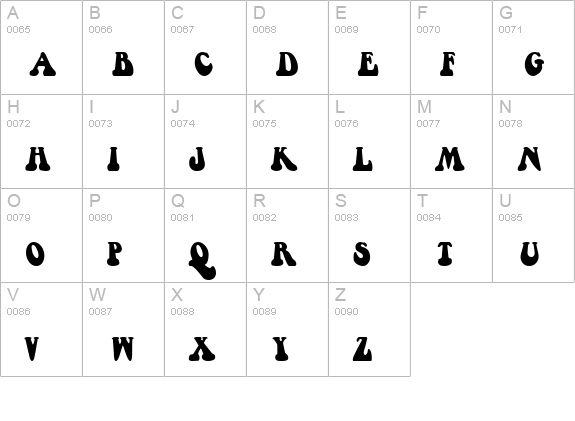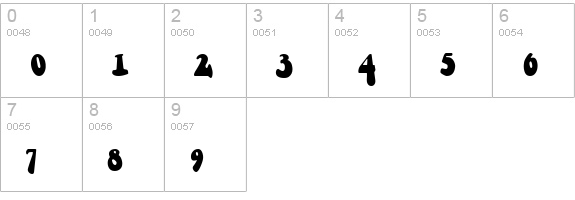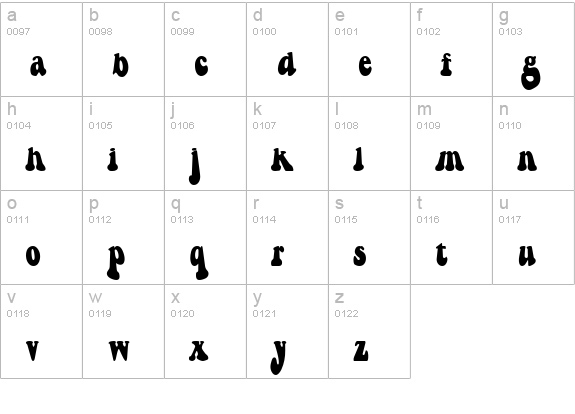
Berthside Font Details
Berthside font is a modern and elegant typeface that exudes sophistication and style. With its sleek lines and graceful curves, Berthside font is perfect for a wide range of design projects, from branding to marketing materials. Its clean and polished appearance makes it suitable for both digital and print applications. One of the best things about Berthside font is that it is available for free download at FontsMarket.com. This means that you can easily access this beautiful typeface without having to spend a dime. Whether you are a professional designer looking for a new font to add to your collection or a hobbyist looking to enhance your creative projects, Berthside font is a fantastic choice that won't break the bank. With its versatility and timeless appeal, Berthside font is sure to become a staple in your font library. Download it today from FontsMarket.com and elevate your designs with this stunning and free typeface.